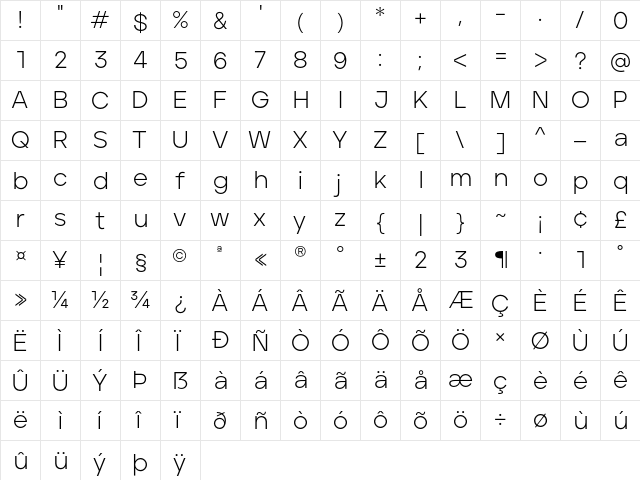
Aventa Personal Use Only Light
| Foundry | Tom Anders Watkins & Ellen Luff |
| Designer | Tom Anders Watkins & Ellen Luff |
Design Context for Aventa Personal Use Only Typeface
Aventa Personal Use Only takes a measured approach to typography — its balanced proportions and neutral character make it a reliable workhorse for both digital and print work. The delicate stroke weight brings airiness and refinement to layouts.